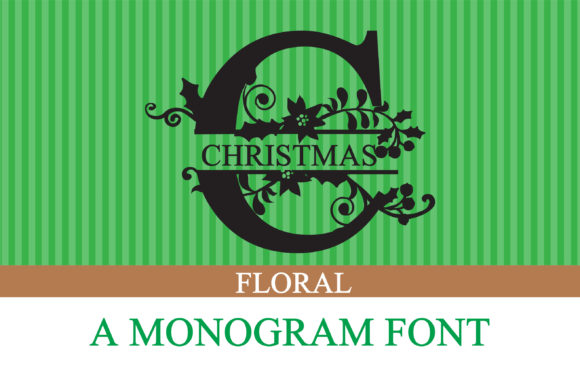
Unleash the Festive Charm with Christmas Floral Font: A Stroke of Creative Genius for Your Monogram Crafts
Dive into the world of enchanting creativity with Christmas Floral Font, a captivating display font that ignites the holiday spirit with each letter. This unique font, meticulously crafted by Illustration Ink, transcends the boundaries of ordinary typing, inviting you on a journey of artistic expression and personalized design.
Picture this: a heartwarming Christmas card adorned with a custom monogram, where the letters dance in perfect harmony, enveloped in a garland of festive flora. With Christmas Floral Font, you hold the key to crafting such masterpieces, transforming simple words into captivating works of art.
This font is not just a collection of characters; it's a treasure chest of creative possibilities. Its uppercase letters, brimming with intricate floral motifs, provide the perfect foundation for your monograms. Pair them with the lowercase letters, adorned with swirling flourishes, and watch as they gracefully intertwine, forming a seamless banner of elegance.
Imagine the joy of receiving a gift tag adorned with your loved one's initials, rendered in the enchanting script of Christmas Floral Font. Each stroke of the pen carries a touch of warmth and personality, making every gift a cherished keepsake.
The Christmas Floral Font is not merely a tool; it's an invitation to unleash your creativity, to weave tales of love, joy, and festive cheer through the art of monogramming. It's a font that transforms the mundane into the magical, the ordinary into the extraordinary.